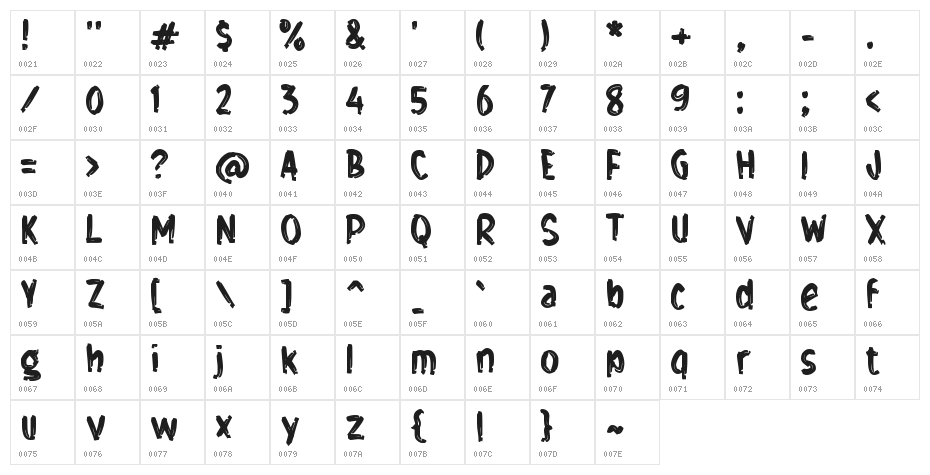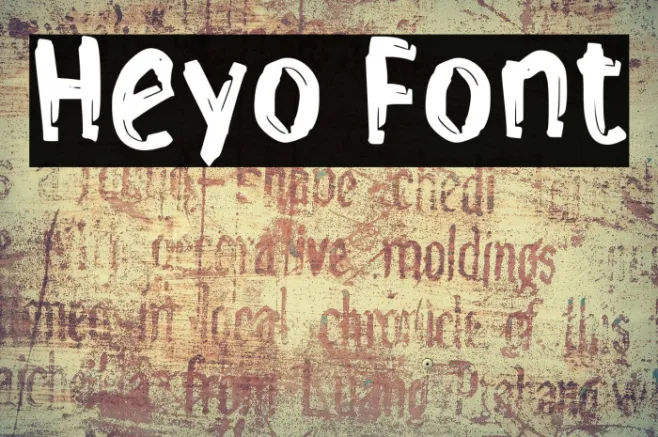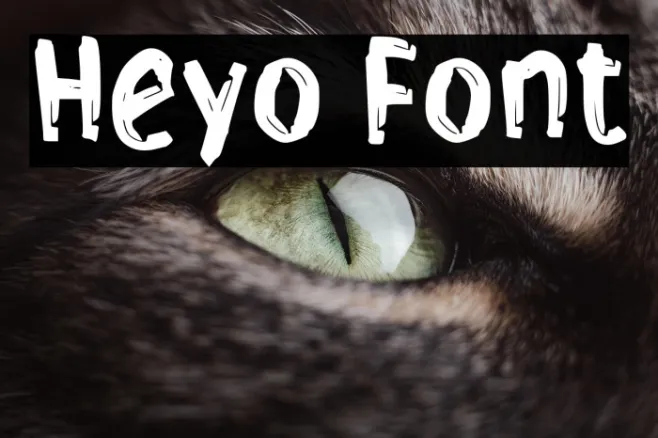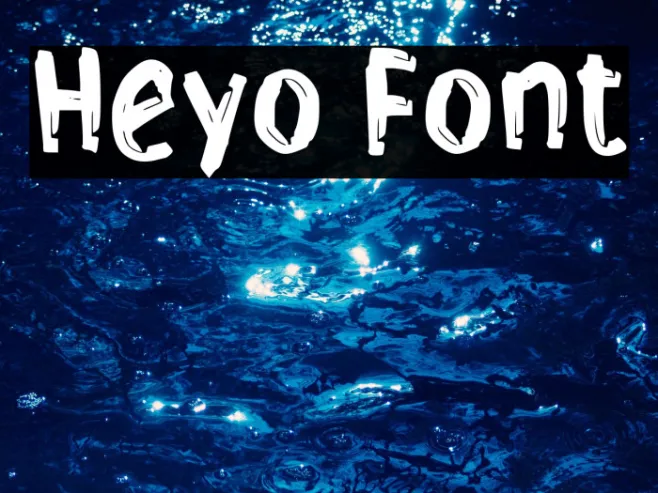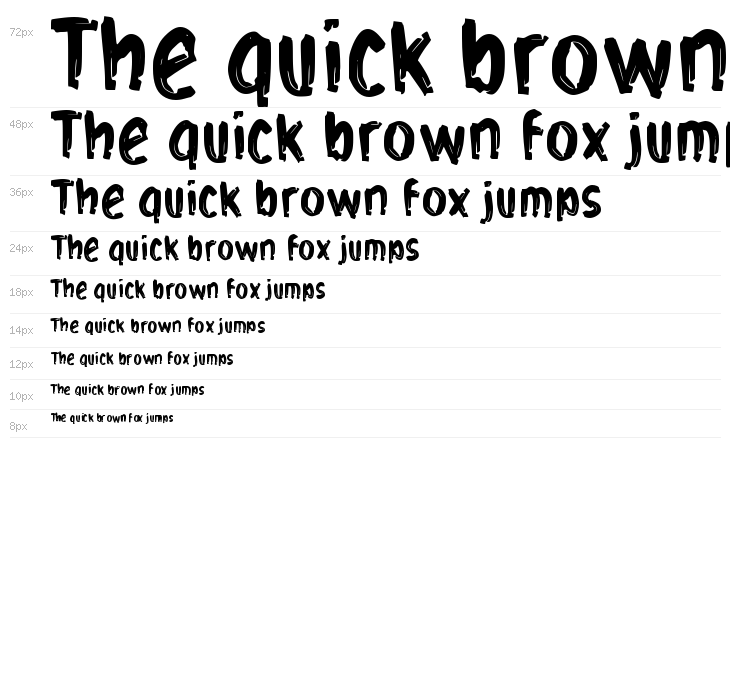
Heyo Font
Heyo Description
This font exhibits a bold, expressive style with a hand-drawn appearance. The characters are irregular and dynamic, featuring thick strokes and a slightly rough texture that adds to its casual and artistic feel. The uppercase and lowercase letters maintain a consistent style, with playful curves and angles that give the font a lively personality. The numbers and special characters follow the same design principles, ensuring a cohesive look across all elements. This font is ideal for projects that require a personal touch or a creative flair.
| Proposed Projects | Ideal for posters, artistic projects, branding, and any design that requires a creative and personal touch. |